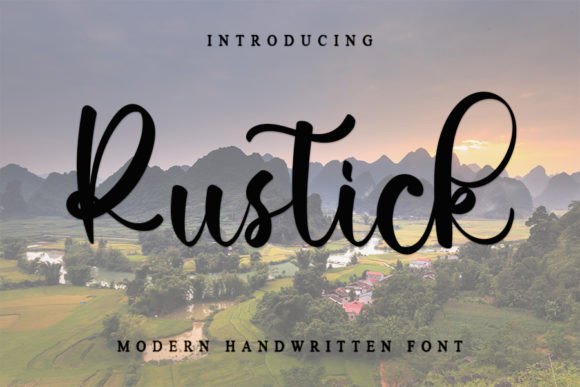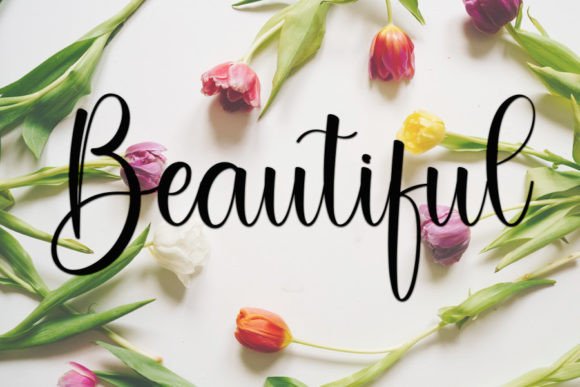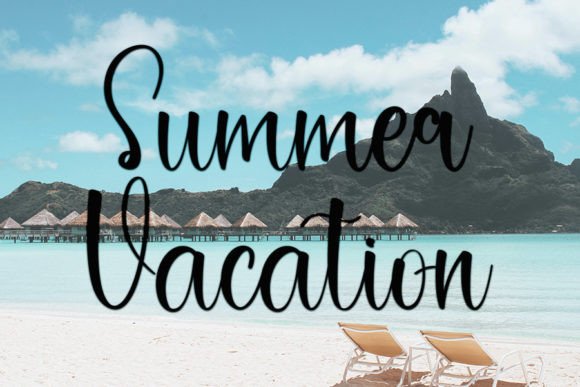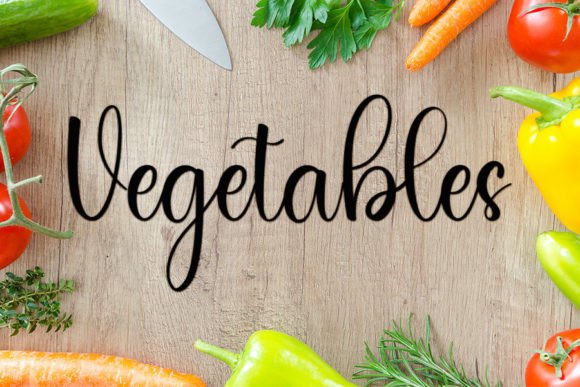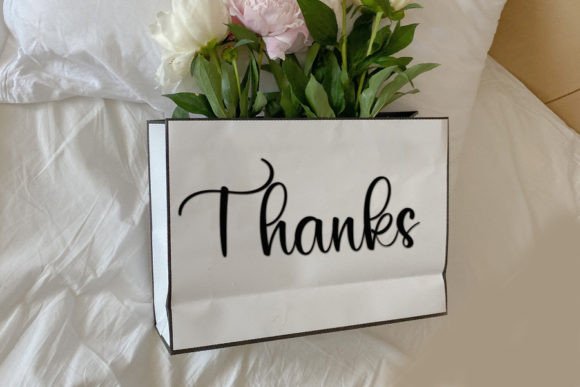
About Rustick Font
“Rustick is a neat and beautiful handwritten font characterized by an elegant touch, making it ideal for a variety of creative projects. Its distinct and timeless style sets it apart, allowing you to fall in love with its unique charm and use it to create spectacular designs.
The beauty of Rustick lies in its neat and well-crafted handwritten aesthetic. The font’s elegance is evident in its clean lines and distinctive style, offering a versatile option for a range of design applications. Whether you’re working on branding, stationery, social media posts, or other projects, Rustick adds a touch of sophistication to your creations.
The distinct and timeless style of Rustick ensures that it remains relevant and visually appealing over time. This makes it a valuable asset for projects where you want a font that stands out while maintaining a classic and enduring quality.
Consider incorporating Rustick into your favorite projects to infuse them with a sense of elegance and individuality. Whether used for logos, branding materials, invitations, or digital designs, Rustick’s distinct and timeless style allows it to shine in various creative contexts.
In summary, Rustick is not just a font; it’s a design asset that combines neatness, beauty, and elegance. Its distinct and timeless style makes it a versatile choice for creating spectacular designs. Fall in love with Rustick and let its unique charm enhance the visual appeal of your creative endeavors.”